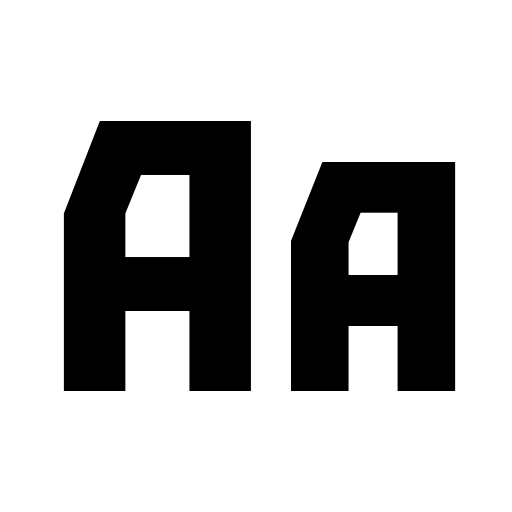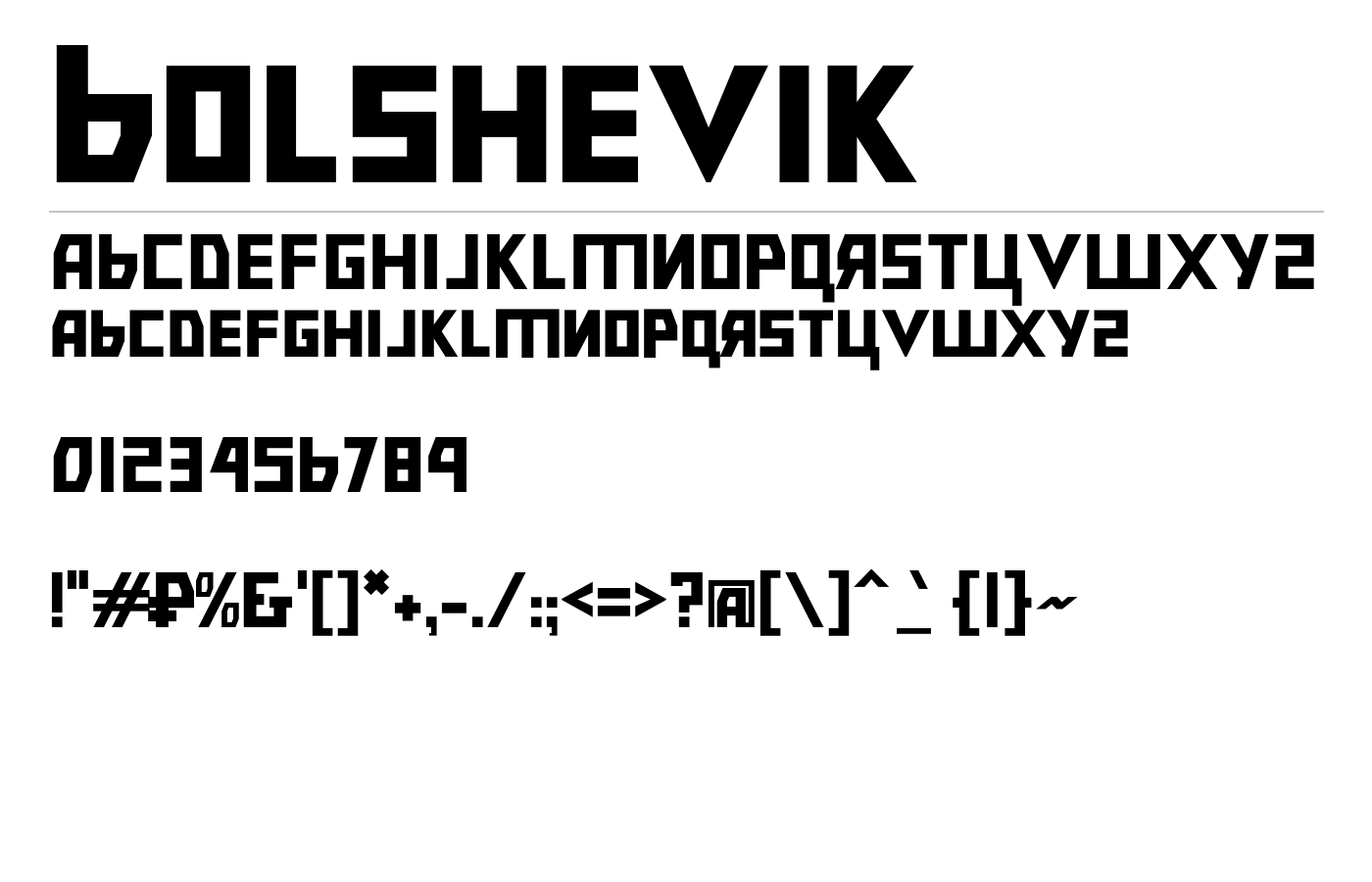
Bolshevik is a bold, condensed sans serif font with a strong geometric structure and sharp edges, giving it a distinctly modern, industrial feel. Its high contrast between thick strokes and angular forms creates a commanding, assertive personality ideal for headlines, posters, and branding that aims to communicate strength and confidence. This font works especially well for impactful display use in editorial or fashion contexts where a bold, unconventional style is desired.
Bolshevik Font
About Bolshevik Font